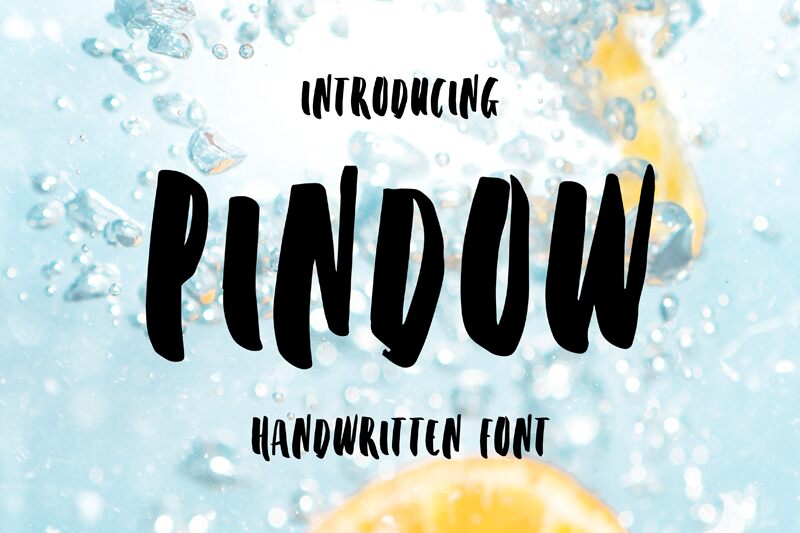
PINDOW, a bold and striking brush font created by Typefar, is a true standout in the world of typography. Its unique characteristics make it an ideal choice for diverse creative projects that demand attention and style. With its bold weight and extra-condensed width, PINDOW is perfect for headlines, logos, posters, and any design that requires a strong visual impact.
This versatile font brings a touch of handcrafted elegance to any project. Its brush style adds depth and texture, creating a dynamic visual experience that captivates the viewer. Whether used in digital or print media, PINDOW stands out with its distinctive appearance.
With PINDOW, designers have the freedom to explore various creative possibilities. From edgy urban designs to elegant wedding invitations, this font adapts effortlessly to different themes and aesthetics. Its versatility combined with its unique brush style sets it apart from other fonts on the market.
Experience the power of PINDOW in your next creative endeavor and elevate your designs with its captivating presence.
PINDOW